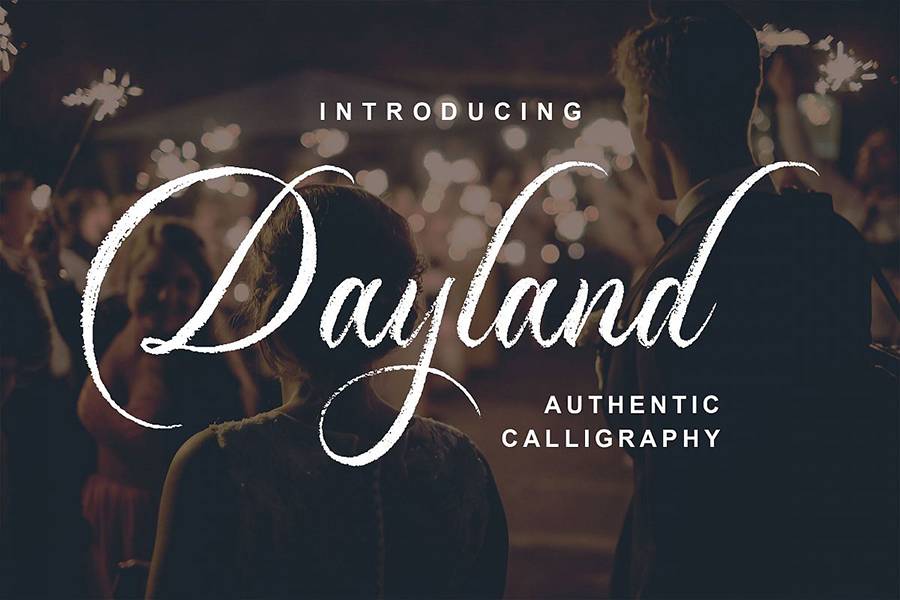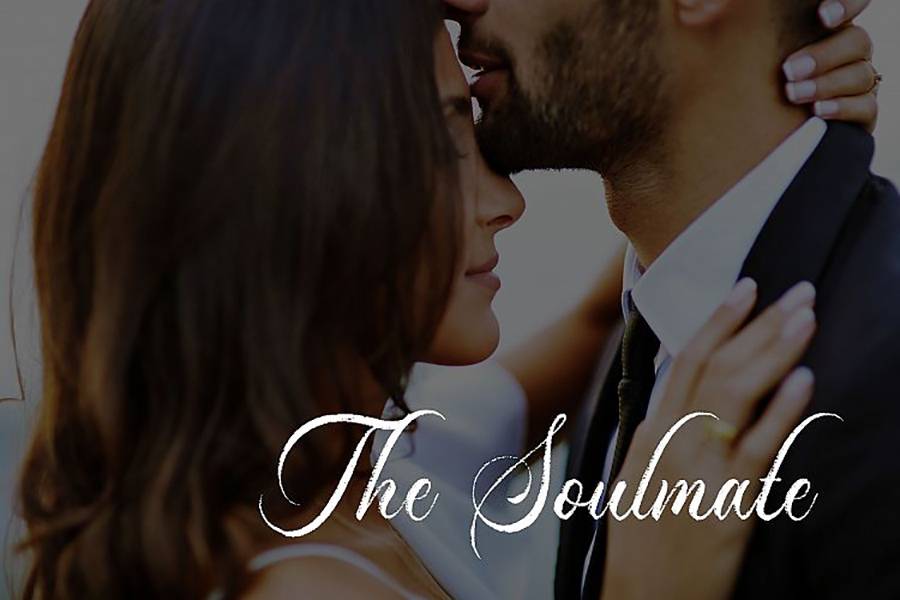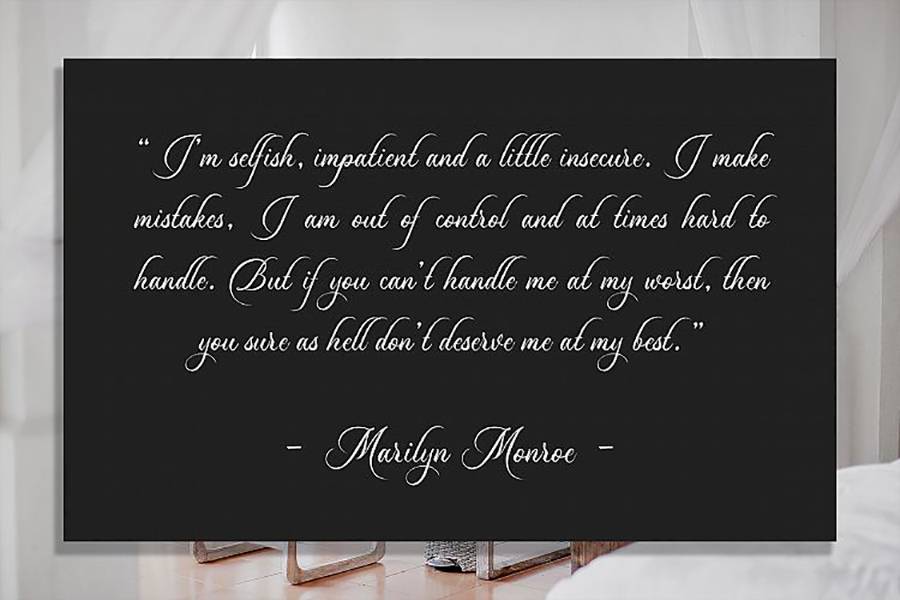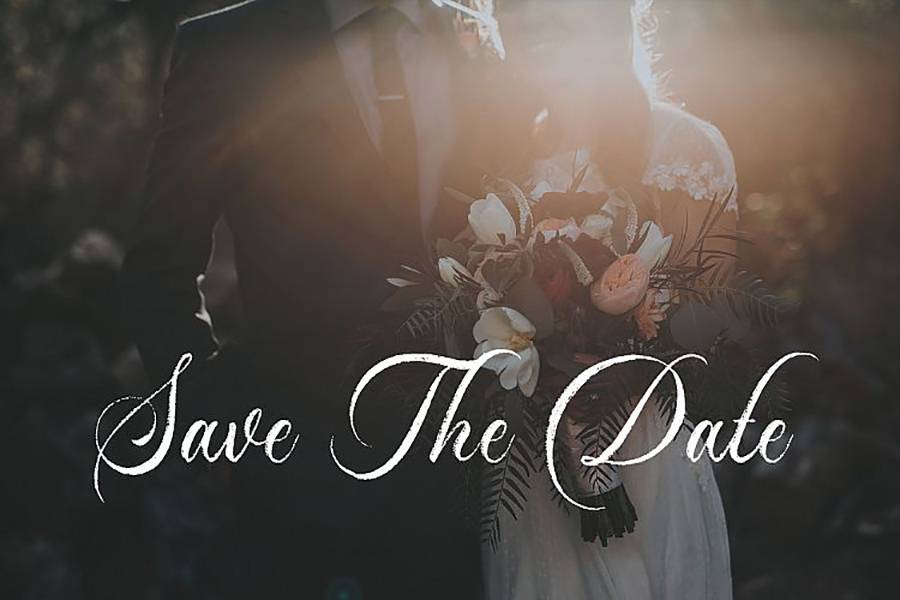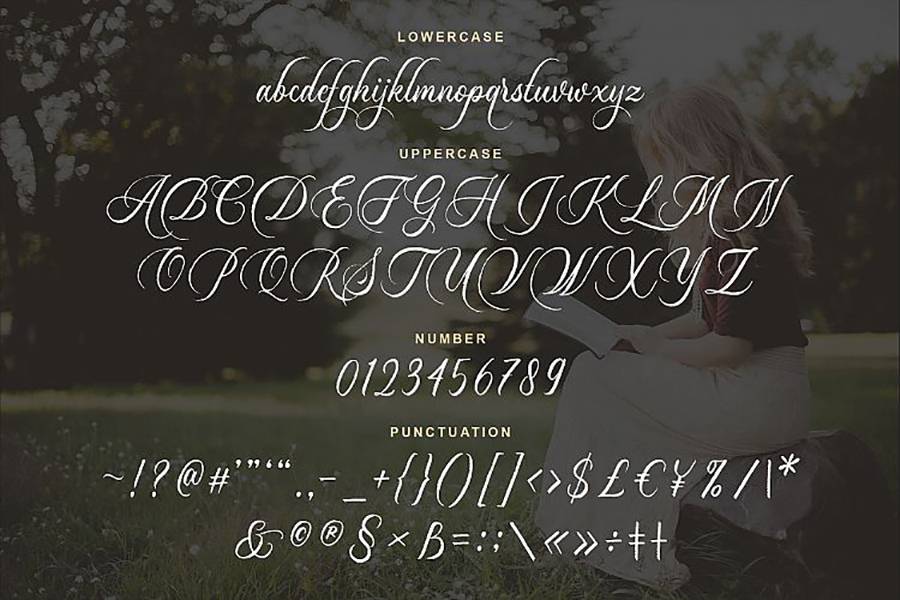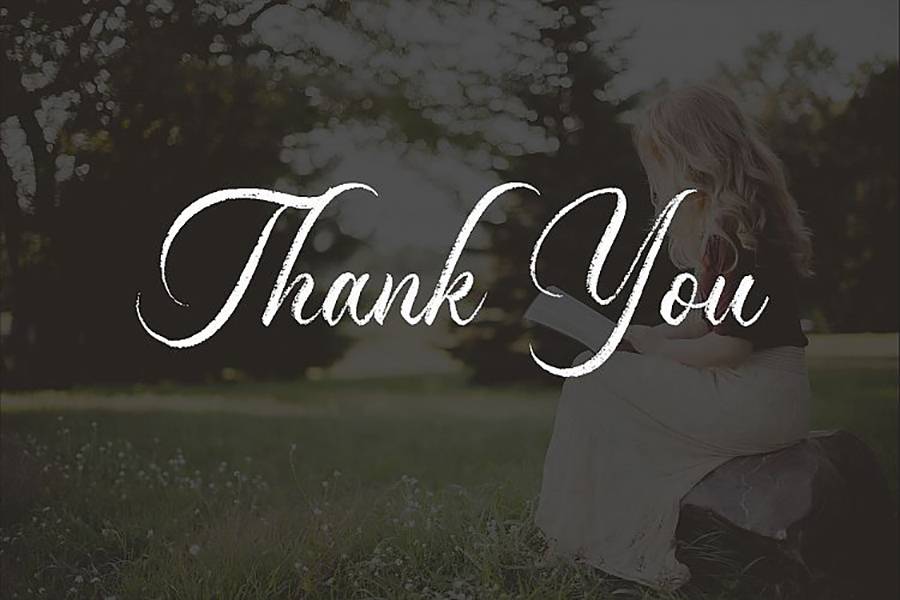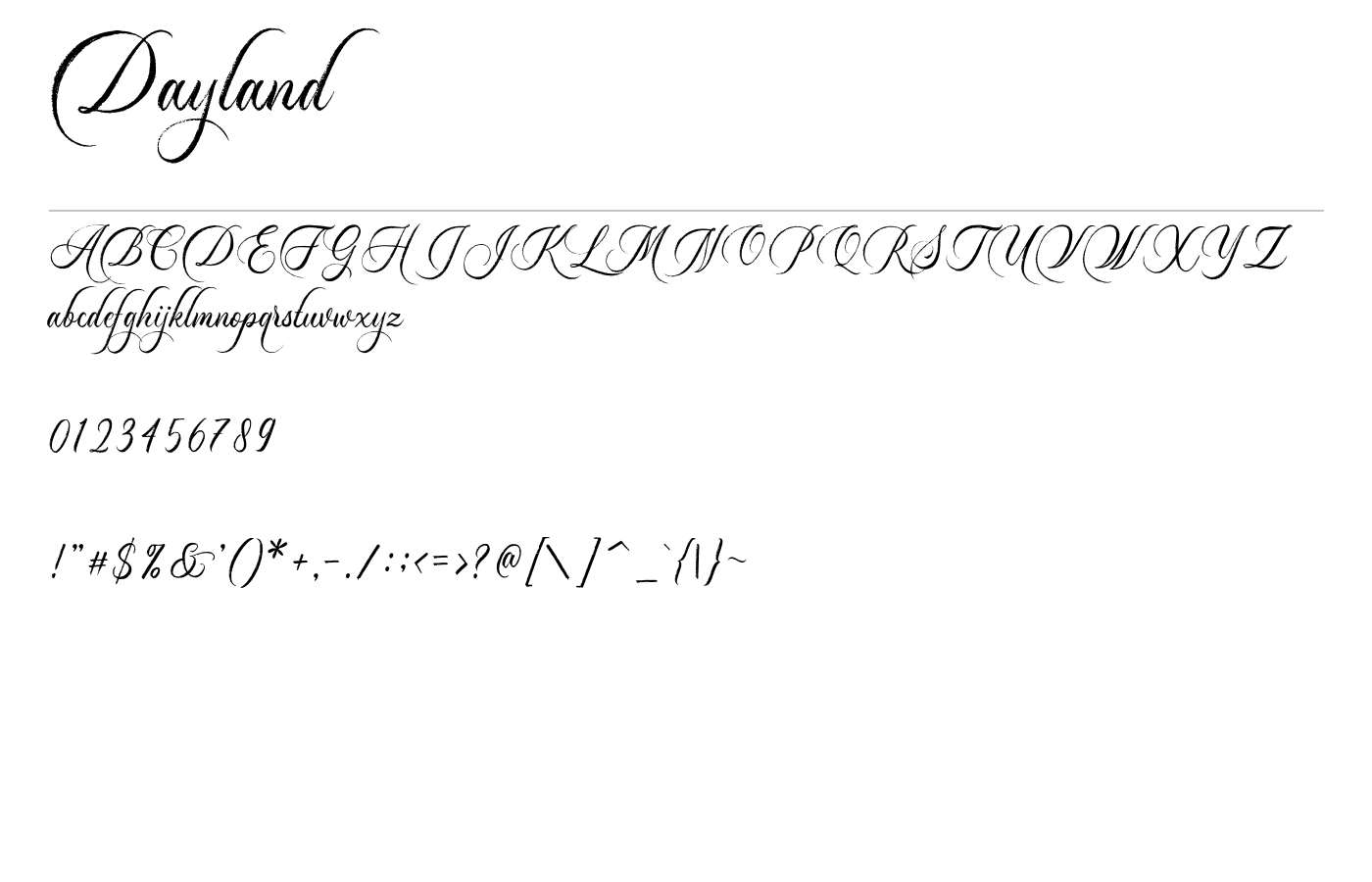
Dayland Script Demo is an elegant, flowing script font with delicate, high-contrast strokes and graceful swashes that evoke a sense of sophistication and romance. Its refined calligraphic style makes it perfect for wedding invitations, luxury branding, and stylish editorial headlines where a personal, handwritten touch is desired. This font brings charm and elegance to designs that require a timeless, classic feel with a modern flourish.
Dayland Script Demo
About Dayland Script Demo